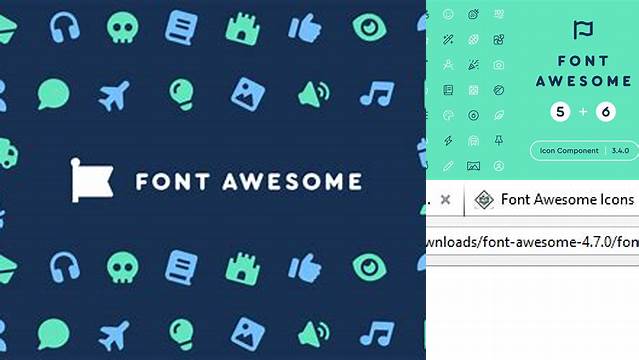
Hey guys! Ever felt like your website or project needs that extra zing? Icons, right? They can seriously elevate your design game. And that's where Font Awesome comes in! It’s like a treasure chest filled with amazing icons, ready for you to use. The best part? You can download Font Awesome free and start using it right away! This article will walk you through everything you need to know, from downloading to implementing these awesome icons in your projects. So, let’s dive in and make your projects visually stunning!
What is Font Awesome and Why You Should Use It
Okay, so what exactly is Font Awesome? Simply put, it’s a massive library of scalable vector icons that you can use on your website, in your applications, or pretty much anywhere you need icons. Think of it as a huge icon buffet, with everything from basic arrows and social media logos to more specialized icons for specific industries. But why should you even bother using Font Awesome? Well, for starters, these icons are vector-based, which means they look crisp and clear at any size. No more pixelated icons ruining your design! Plus, they’re super easy to customize with CSS – you can change their size, color, and even add cool effects. Font Awesome is also constantly updated, so you’re always getting new icons and features. And did I mention it’s free to use for most projects? Seriously, what’s not to love?
Font Awesome Free vs. Pro: Which Version is Right for You?
When you download Font Awesome, you'll notice there are two main versions: Free and Pro. So, which one should you choose? The Free version is fantastic for most projects, offering a solid selection of icons that cover a wide range of uses. You get access to thousands of icons in various styles, making it a great starting point. However, the Pro version takes things to the next level. It includes even more icons, more styles (like thin and light), and some extra goodies like official support. If you're working on a large or complex project, or if you need very specific icons, Pro might be worth the investment. But honestly, the Free version is often more than enough to get started and make your project shine. Think of it like this: Free is a fully loaded starter pack, while Pro is the ultimate deluxe edition.
Using Font Awesome Icons: Basic Usage and Examples
Alright, now for the fun part – actually using those shiny new Font Awesome icons! Once you've installed Font Awesome (either by downloading the files or using the CDN), you can start adding icons to your HTML. The basic idea is to use <i> tags with specific class names that correspond to the icons you want. For example, if you want to use the user icon, you'd use <i class="fas fa-user"></i>. The fas part refers to the Font Awesome Solid style (there are also regular, light, and other styles, depending on which version you're using and which icons you need). The fa-user part is the specific icon name. You can find the icon names on the Font Awesome website – just browse the icons and click on one to see its code. You can use these icons anywhere in your HTML, like in buttons, navigation menus, or even within text. It’s all about adding that visual flair to your project! Experiment with different icons and see how they can enhance your design.
Customizing Font Awesome Icons: Size, Color, and More
One of the coolest things about Font Awesome icons is how customizable they are. You're not stuck with the default size and color – you can tweak them to perfectly match your design. Changing the size is super easy; you can use Font Awesome’s size classes, like fa-xs (extra small), fa-sm (small), fa-lg (large), fa-2x (twice the size), and so on. For example, <i class="fas fa-user fa-2x"></i> will display the user icon at twice its normal size. To change the color, you can simply use CSS. Since Font Awesome icons are basically fonts, you can use the color property to change their color. You can also use other CSS properties like opacity, rotate, and even animations to create some really eye-catching effects. The possibilities are endless! So go wild and make those icons truly your own.
Troubleshooting Common Font Awesome Issues
Okay, let's be real – sometimes things don't go quite as planned. You might download Font Awesome free, follow all the steps, and still not see your icons. Don’t panic! There are a few common issues that often pop up. One of the most frequent problems is a caching issue. Your browser might be holding onto an older version of your website, which doesn't include the Font Awesome styles. Try clearing your browser cache or doing a hard refresh (usually Ctrl+Shift+R or Cmd+Shift+R). Another issue could be the way you've linked to Font Awesome. Double-check that the CDN link or the path to your local files is correct. A typo in the URL can prevent the icons from loading. Also, make sure you’re using the correct class names for the icons. It’s easy to accidentally type fla-user instead of fa-user. If you’re still stuck, the Font Awesome community is super helpful, so don’t hesitate to ask for help on forums or social media. You’re not alone in this!
Advanced Font Awesome Techniques: Stacking, Layering, and More
Once you've mastered the basics of using Font Awesome, you can start exploring some more advanced techniques to really make your icons pop. One cool trick is stacking icons, which allows you to combine multiple icons into a single visual element. For example, you could put a checkmark icon on top of a circle icon to create a completed task indicator. Font Awesome provides classes like fa-stack and fa-stack-x to help you achieve this. Another technique is layering icons, where you can position icons on top of each other to create unique designs. This is great for creating badges or adding decorative elements to your icons. You can also use CSS to further customize these layered icons, adding shadows, borders, and other effects. These advanced techniques let you push the boundaries of what’s possible with Font Awesome, turning simple icons into sophisticated visual components. So, get creative and see what you can come up with! The only limit is your imagination.
Font Awesome for Different Platforms: Web, Desktop, and Mobile
Font Awesome isn’t just for websites; it’s incredibly versatile and can be used on a variety of platforms. Whether you’re building a web application, a desktop program, or a mobile app, Font Awesome can help you add those essential icons. For web projects, we’ve already discussed how to use the CDN or download the files directly. For desktop applications, you can often use the SVG format of the icons, which can be easily integrated into various UI frameworks. Mobile apps are another great place to use Font Awesome. Frameworks like React Native and Flutter have libraries that make it easy to use Font Awesome icons in your mobile interfaces. This means you can maintain a consistent look and feel across all your projects, regardless of the platform. Font Awesome truly is a universal icon solution.
Best Practices for Using Font Awesome in Your Projects
To get the most out of Font Awesome, there are a few best practices you should keep in mind. First, be mindful of performance. If you’re using the CDN, it’s generally very efficient, but if you’re hosting the files yourself, make sure they’re properly compressed and served with optimal caching. Also, try to only load the icon styles you actually need. If you’re only using solid icons, there’s no need to load the regular or light styles. Another best practice is to use semantic HTML. Instead of using icons purely for decoration, think about how they can enhance the meaning of your content. For example, using a trash can icon next to a delete button makes the button’s purpose immediately clear. Finally, always keep your Font Awesome version up to date. New versions often include bug fixes, performance improvements, and, of course, new icons! Following these best practices will ensure your Font Awesome experience is smooth and your projects look their best.
Alternatives to Font Awesome: Exploring Other Icon Libraries
While Font Awesome is a fantastic icon library, it’s always good to know your options. There are several other icon libraries out there that you might want to explore, depending on your specific needs. One popular alternative is Material Design Icons, which is designed to align with Google’s Material Design guidelines. If you’re building an Android app or a website with a Material Design aesthetic, this library might be a great fit. Another option is Feather Icons, which is a set of simple, beautiful icons designed with consistency in mind. Feather Icons are known for their clean lines and minimalist style. Then there's Ionicons, specifically tailored for mobile app development, and many others like them. Each library has its own strengths and weaknesses, so it’s worth taking a look around and seeing what resonates with you. Experimenting with different libraries can help you find the perfect icons for your project.
Font Awesome's Impact on Web Design and Development
Font Awesome has had a significant impact on web design and development. Before Font Awesome, adding icons to a website often involved using image files, which could be cumbersome and lead to performance issues. Font Awesome changed the game by providing scalable vector icons that are easy to use, customize, and integrate into any project. This has made it much simpler for designers and developers to add visual elements to their websites and applications, enhancing the user experience and making designs more engaging. The popularity of Font Awesome has also contributed to a more standardized approach to icon usage on the web, making it easier for users to understand and interact with websites. Font Awesome has truly democratized icon usage, making it accessible to everyone from hobbyists to professional developers.
Future Trends in Iconography and Font Awesome's Role
Iconography is constantly evolving, and Font Awesome is playing a key role in shaping its future. One major trend is the increasing use of animated icons, which can add a dynamic and engaging element to websites and applications. Font Awesome already supports some basic animations, and it’s likely that we’ll see more advanced animation capabilities in the future. Another trend is the rise of micro-interactions, where icons provide visual feedback to user actions. For example, an icon might change color or animate when a user hovers over it or clicks on it. Accessibility is also becoming increasingly important in web design, and Font Awesome is making efforts to ensure its icons are accessible to users with disabilities. This includes providing alternative text for icons and ensuring they are compatible with screen readers. Font Awesome is committed to staying at the forefront of iconography trends, ensuring it remains a valuable tool for designers and developers for years to come.
Font Awesome and Accessibility: Making Your Icons Inclusive
Speaking of accessibility, it’s crucial to consider how your use of icons impacts users with disabilities. While icons can enhance the visual appeal of your website, they shouldn’t come at the expense of accessibility. One of the most important things you can do is to provide alternative text for your icons using the aria-label attribute. This allows screen readers to describe the icon to visually impaired users. For example, if you’re using a magnifying glass icon for a search button, you might use <i class="fas fa-search" aria-label="Search"></i>. It’s also important to ensure that your icons have sufficient contrast against the background, making them easier to see for users with low vision. Font Awesome itself is designed with accessibility in mind, but it’s up to you to use it responsibly. By making your icons accessible, you’re creating a more inclusive experience for all users.
Font Awesome in E-commerce: Enhancing the User Experience
E-commerce websites can greatly benefit from using Font Awesome icons. Icons can help guide users through the shopping process, making it easier to find products, add them to the cart, and complete the checkout process. For example, you can use a shopping cart icon in the navigation menu to clearly indicate the cart page. You can also use icons to highlight important information, such as payment methods or shipping options. Using icons consistently throughout your e-commerce site can create a more professional and trustworthy impression. It also helps to break up text and make your content more visually appealing. Font Awesome can help you create an e-commerce experience that is both user-friendly and visually engaging.
Font Awesome in Education: Making Learning More Engaging
Font Awesome isn't just for commercial websites; it can also be a valuable tool in education. Icons can help make learning materials more engaging and easier to understand. For example, you can use icons to represent different subjects or topics in a course. You can also use icons to create visual cues in presentations or handouts. In online learning environments, icons can help students navigate through the course content and find the resources they need. Font Awesome can help educators create learning experiences that are both informative and visually appealing.
Font Awesome in Open Source Projects: Contributing to the Community
Font Awesome is a popular choice for open source projects, and the Font Awesome team actively encourages community contributions. If you have an idea for a new icon, you can submit a request on the Font Awesome website. The team also welcomes contributions to the Font Awesome codebase, whether it's fixing bugs or adding new features. By contributing to Font Awesome, you're helping to make it an even better resource for the entire community. Font Awesome is a testament to the power of open source collaboration.
Font Awesome and Web Frameworks: Integration with React, Angular, and Vue
If you’re using a modern web framework like React, Angular, or Vue, you’ll be happy to know that Font Awesome integrates seamlessly with these frameworks. There are official Font Awesome components and libraries for each framework, making it easy to add icons to your components and templates. These components often provide additional features, such as dynamic icon updates and better performance. Using Font Awesome with a web framework allows you to take full advantage of the library’s capabilities while maintaining a clean and organized codebase. Font Awesome and web frameworks are a match made in web development heaven.
Font Awesome and WordPress: Enhancing Your Website's Design
WordPress users can easily add Font Awesome icons to their websites using plugins or by directly adding the Font Awesome code to their theme files. There are several WordPress plugins specifically designed to integrate Font Awesome, making it simple to insert icons into your posts, pages, and menus. If you’re comfortable editing your theme files, you can also add the Font Awesome CDN link to your theme’s header file. Once Font Awesome is installed, you can use icons to enhance your website’s design, create call-to-action buttons, and improve navigation. Font Awesome can help you take your WordPress website to the next level.
Font Awesome in Email Marketing: Making Your Emails Stand Out
In the crowded world of email marketing, it’s essential to make your emails stand out. Font Awesome icons can help you do just that. You can use icons to highlight important information, create visual cues, and add a touch of personality to your emails. However, it’s important to note that not all email clients support Font Awesome icons directly. To ensure your icons display correctly, you may need to use an image-based fallback for email clients that don’t support web fonts. Despite this limitation, Font Awesome can still be a valuable tool for enhancing your email marketing campaigns. Font Awesome can help you create emails that are both visually appealing and effective.
Font Awesome and Graphic Design: Using Icons in Print and Digital Media
Font Awesome isn’t just for websites; it can also be used in graphic design projects. The SVG format of Font Awesome icons makes them perfect for print and digital media. You can easily import Font Awesome icons into graphic design software like Adobe Illustrator or Sketch. This allows you to use the same icons across all your projects, ensuring a consistent brand identity. Whether you’re designing a brochure, a poster, or a social media graphic, Font Awesome can provide you with a wide range of icons to enhance your designs. Font Awesome is a versatile tool for graphic designers.
Font Awesome and Data Visualization: Representing Information Visually
Data visualization is a crucial aspect of many projects, and Font Awesome icons can play a valuable role in representing information visually. You can use icons to create charts, graphs, and other visual representations of data. For example, you could use a graph icon to represent data trends or a map marker icon to represent geographic locations. Using icons in your data visualizations can make them more engaging and easier to understand. Font Awesome can help you transform raw data into compelling visual stories.
Font Awesome and Game Development: Adding Visual Elements to Games
Game developers can also benefit from using Font Awesome icons. Icons can be used for in-game menus, user interfaces, and even as game elements themselves. The scalability of Font Awesome icons makes them ideal for games, as they will look crisp and clear at any resolution. Many game development frameworks and engines support the use of vector graphics, making it easy to integrate Font Awesome icons into your games. Font Awesome can help you add polish and visual appeal to your games.
Font Awesome and Robotics: Visualizing Robot Actions and Status
In the field of robotics, Font Awesome icons can be used to visualize robot actions, status, and other information. Icons can be displayed on robot control panels, user interfaces, or even directly on the robots themselves. For example, you could use a battery icon to indicate the robot’s battery level or a wrench icon to indicate a maintenance issue. Using icons in robotics projects can help improve communication and understanding between humans and robots. Font Awesome can help you bring your robots to life visually.
Font Awesome and Home Automation: Controlling Your Smart Home with Icons
Home automation systems often rely on visual interfaces to control smart devices and appliances. Font Awesome icons can be used to create intuitive and user-friendly interfaces for home automation systems. You can use icons to represent lights, thermostats, security systems, and other smart home devices. Using icons consistently throughout your home automation system can make it easier to control your smart home and create a seamless user experience. Font Awesome can help you build a smarter and more intuitive home.
Font Awesome and IoT (Internet of Things): Visualizing Connected Devices
The Internet of Things (IoT) involves connecting various devices and sensors to the internet. Font Awesome icons can be used to visualize these connected devices and their status. You can use icons to represent sensors, actuators, and other IoT devices on dashboards and control panels. This can help you monitor and manage your IoT devices more effectively. Font Awesome can help you visualize the connected world of IoT.
Font Awesome and Virtual Reality (VR): Creating Immersive Experiences
Virtual reality (VR) applications often require custom user interfaces and visual elements. Font Awesome icons can be used to create these interfaces, adding visual cues and enhancing the user experience. The scalability of Font Awesome icons makes them ideal for VR environments, as they will look crisp and clear on high-resolution VR displays. Font Awesome can help you create more immersive and engaging VR experiences.
Font Awesome and Augmented Reality (AR): Enhancing the Real World with Icons
Augmented reality (AR) applications overlay digital information onto the real world. Font Awesome icons can be used to add visual annotations, labels, and other information to the AR environment. For example, you could use icons to mark points of interest or provide instructions to the user. Font Awesome can help you enhance the real world with AR.
Font Awesome and 3D Modeling: Adding Details to 3D Models
While Font Awesome is primarily designed for 2D graphics, it can also be used in 3D modeling projects. You can import Font Awesome icons into 3D modeling software and use them as textures, decals, or other decorative elements on your 3D models. This can add details and visual interest to your 3D creations. Font Awesome can help you take your 3D models to the next level.
Font Awesome and Machine Learning: Visualizing AI Outputs
Machine learning algorithms often produce complex outputs that can be difficult to interpret. Font Awesome icons can be used to visualize these outputs, making them more understandable and accessible. For example, you could use icons to represent different categories or classifications in a machine learning model. Font Awesome can help you bridge the gap between AI and human understanding.
Font Awesome and Cybersecurity: Representing Security Concepts Visually
Cybersecurity concepts can often be abstract and difficult to grasp. Font Awesome icons can be used to represent these concepts visually, making them easier to understand. For example, you could use a lock icon to represent security or a shield icon to represent protection. Font Awesome can help you communicate cybersecurity concepts more effectively.
Font Awesome and Blockchain: Visualizing Blockchain Transactions
Blockchain technology involves complex transactions and data structures. Font Awesome icons can be used to visualize these transactions and data, making them more accessible to users. You could use icons to represent different types of transactions or to indicate the status of a blockchain operation. Font Awesome can help you demystify the world of blockchain.